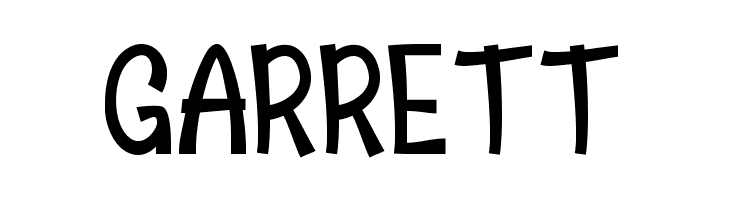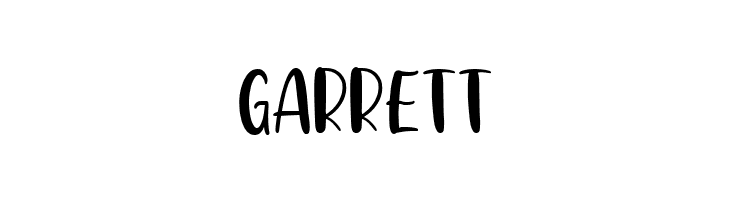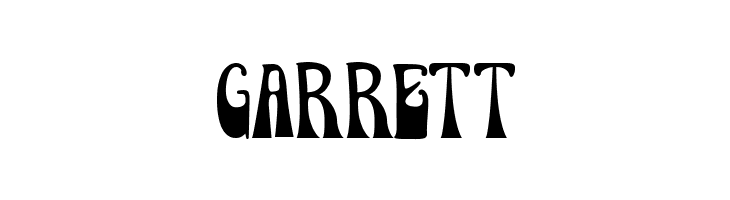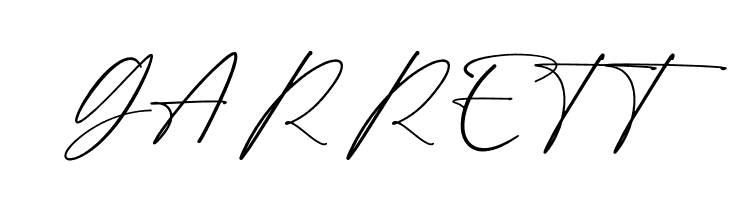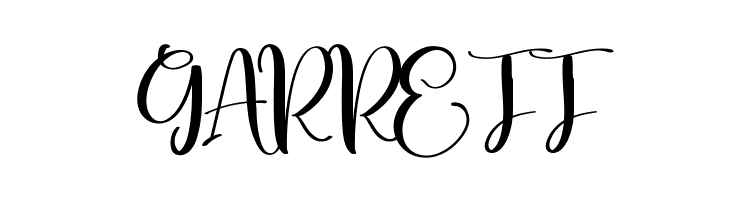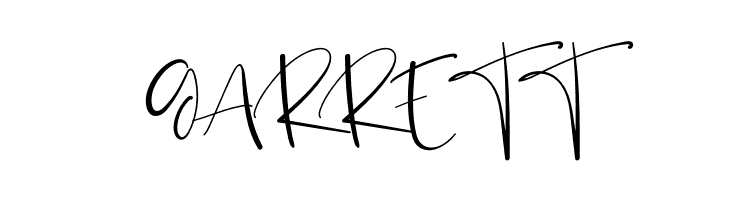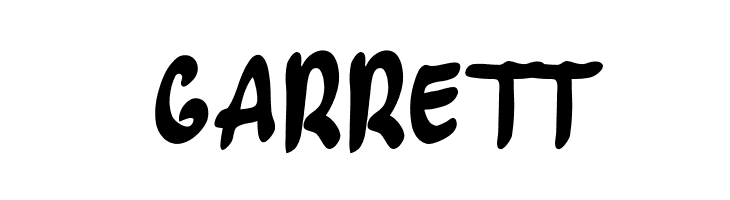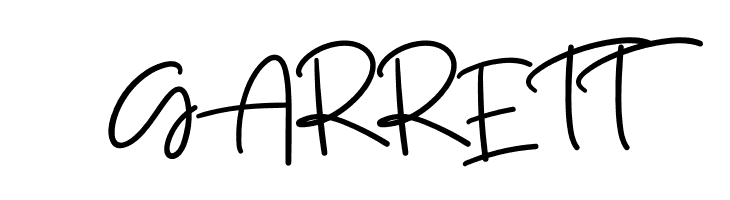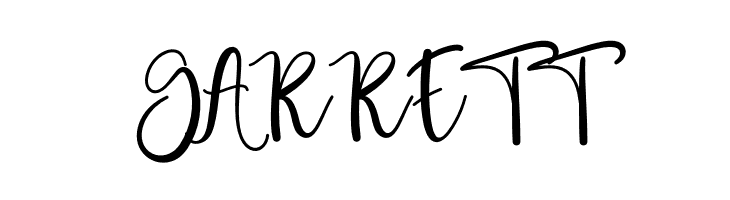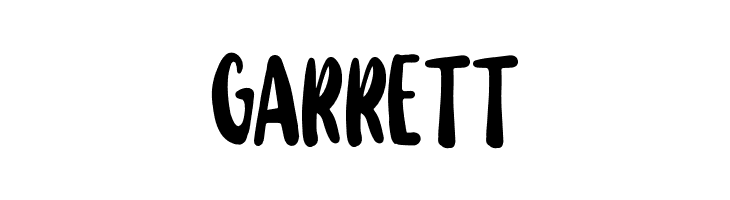
Playful handwritten font with rounded edges.
A bold, playful handwritten font with thick strokes and rounded edges.
A playful and elegant script font with flowing cursive letters.
A playful and elegant script font with smooth, flowing curves.
Bold, playful handwritten font with brush-like strokes.
A bold, playful font with exaggerated curves and dynamic styling.
A bold, expressive brush-style font with dynamic, hand-painted strokes.
A geometric, maze-like font with bold, intersecting lines and a modern, architectural style.
A bold, italicized font with a modern, futuristic design.
A lively handwritten font with fluid strokes and a casual style.
Casual handwritten font with playful style.
A bold, playful script font with a handwritten feel.
A playful, handwritten script font with a lively and dynamic style.
A playful, rounded font with a friendly and approachable style.
Hand-drawn school-themed dingbat illustrations.
Bold, blocky font with a vintage, distressed look.
A bold, vintage-style font with a rugged, distressed texture.
A bold, brush-style font with dynamic strokes and high contrast.
A playful and expressive handwritten font with fluid, dynamic strokes.
Modern, playful handwritten script with decorative swashes.
A dynamic and flowing script font with elegant, cursive letterforms.
A graceful and fluid script font with elegant cursive styling.
An elegant, flowing script font with classic and modern elements.
A bold, expressive handwritten font with fluid strokes and a playful style.
A playful, hand-drawn font with whimsical and bold letterforms.
A bold, brush-style script font with dynamic, flowing letterforms.
A bold, classic serif font with strong contrast and sharp serifs.
A bold, handwritten font with a playful and dynamic style.
A bold, drippy font with an artistic splatter effect.